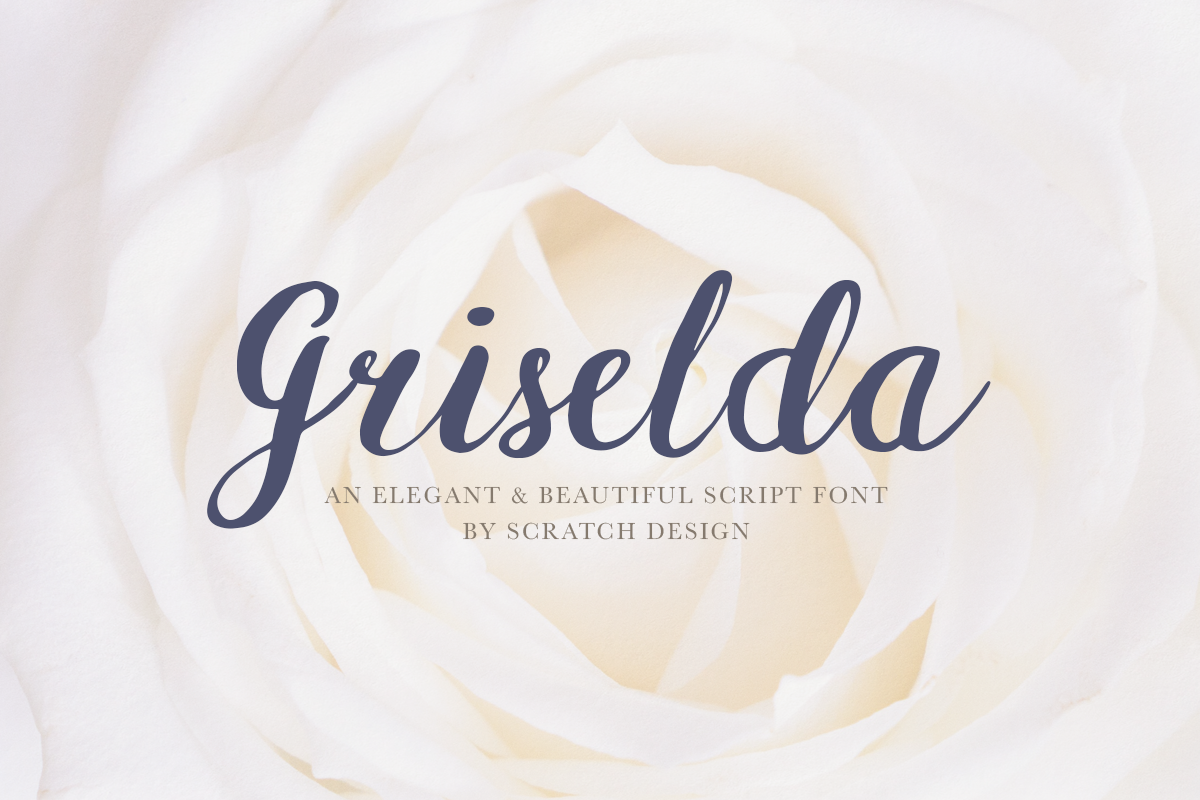
Griselda
Griselda is a stunning handwritten font full of authenticity! Get inspired by its unique charm.
Scratch Design Bali
Griselda
By Scratch Design Bali